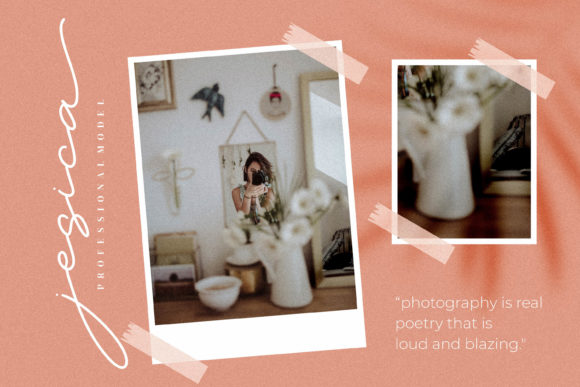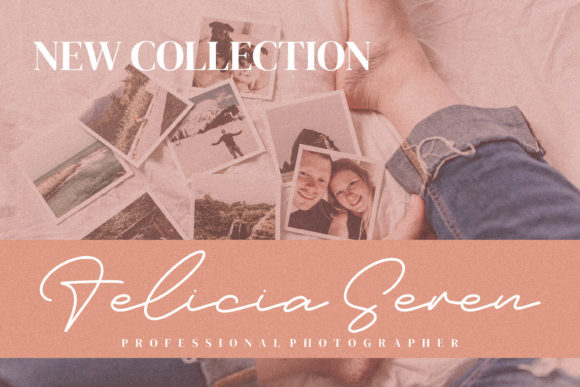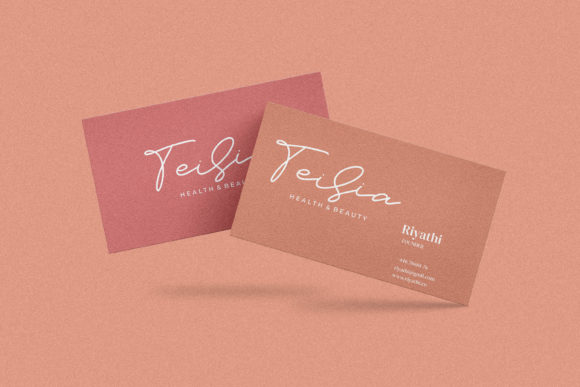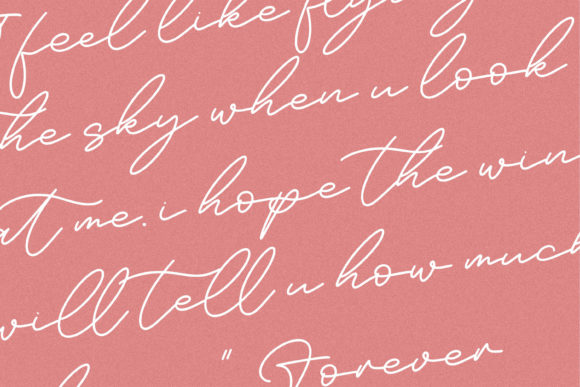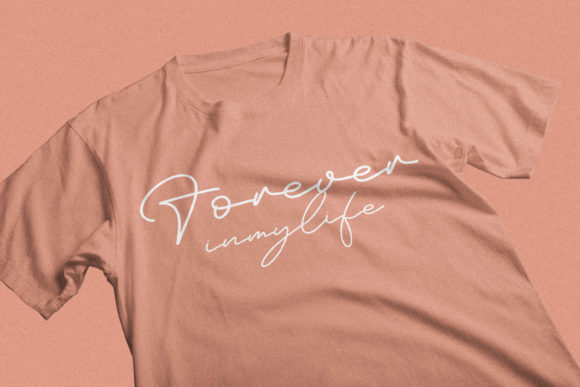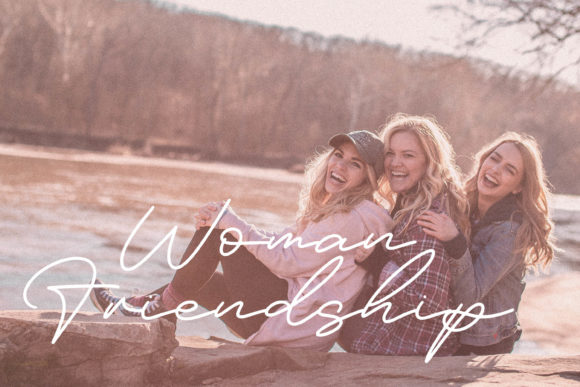
Introduction to Felisia Font
Felisia is a thin lettered and graceful script font.
Fall for its ravishing style and use it to create gorgeous designs Felisia is PUA encoded which means you can access all glyphs and swashes with ease.
Key Features of Felisia Font